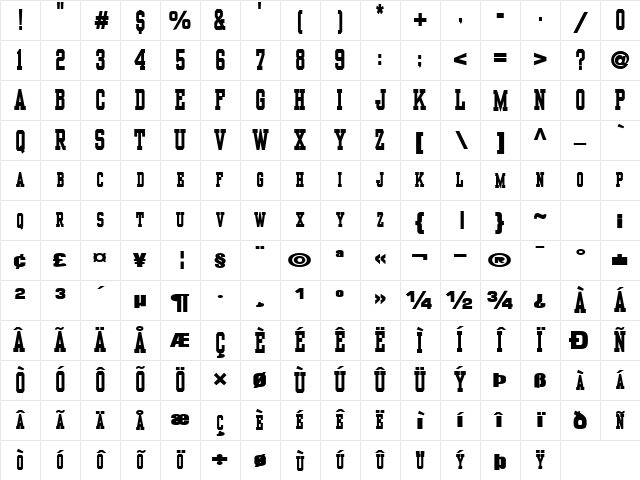
UseFulSpectator123 Bold
Design Context for UseFulSpectator123
UseFulSpectator123 is a composed and adaptable typeface that performs quietly and consistently across a wide range of design contexts. Its bold stroke weight gives it real presence on the page.